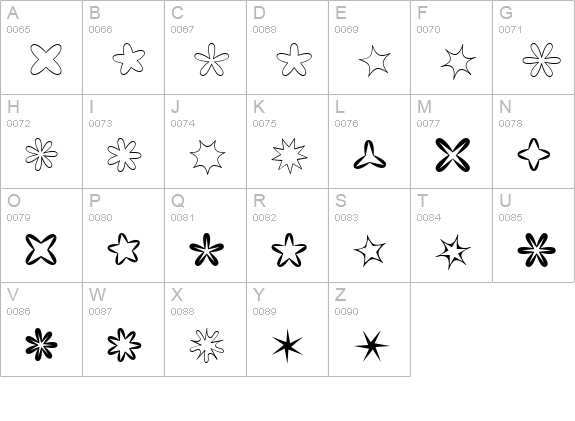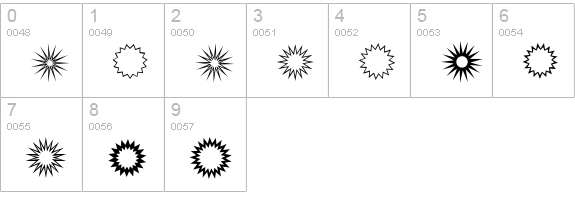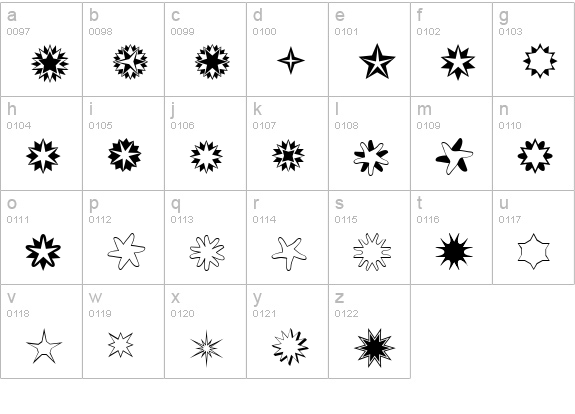
XStellaSternBright Font Details
XStellaSternBright font is a striking and elegant typeface that exudes sophistication and charm. Its sleek and modern design makes it perfect for a wide range of creative projects, from branding to editorial design. With its unique combination of sharp angles and smooth curves, XStellaSternBright font is sure to make a strong impression. The best part? XStellaSternBright font is completely free to download at FontsMarket.com. This means you can easily access this stylish font and use it in your projects without any cost. Whether you're designing a logo, creating a poster, or crafting a website, XStellaSternBright font will elevate your work and help you stand out from the crowd. Don't miss out on the opportunity to enhance your designs with XStellaSternBright font. Download it for free today at FontsMarket.com and add a touch of sophistication to your creative projects.